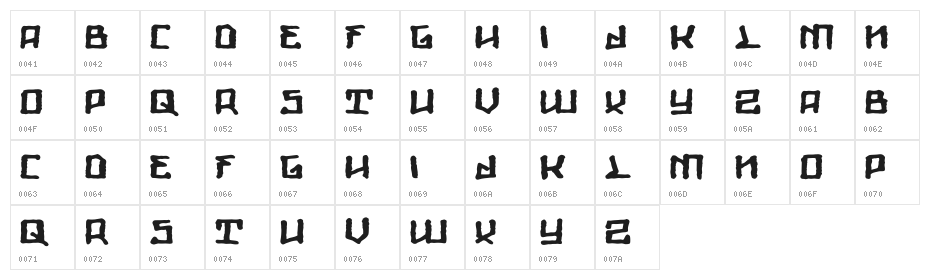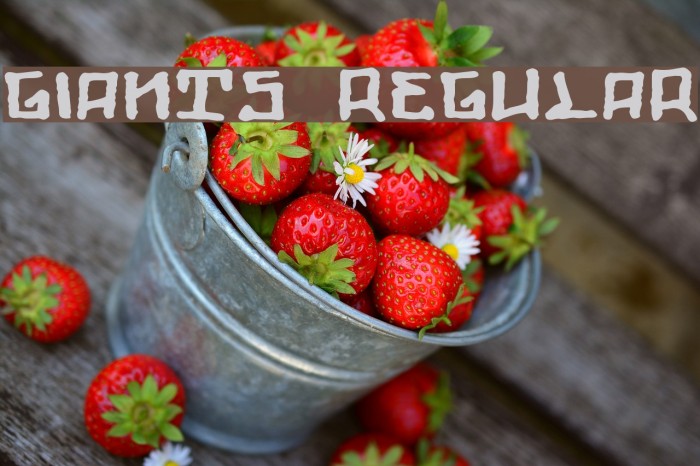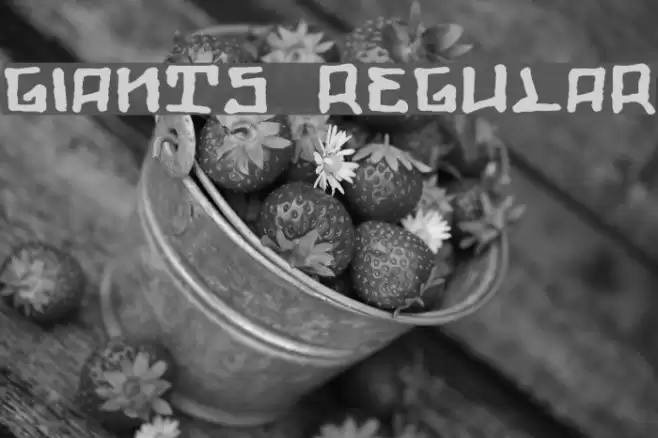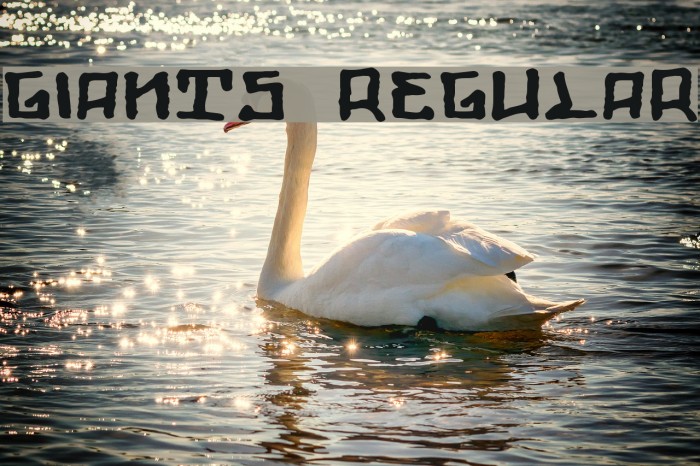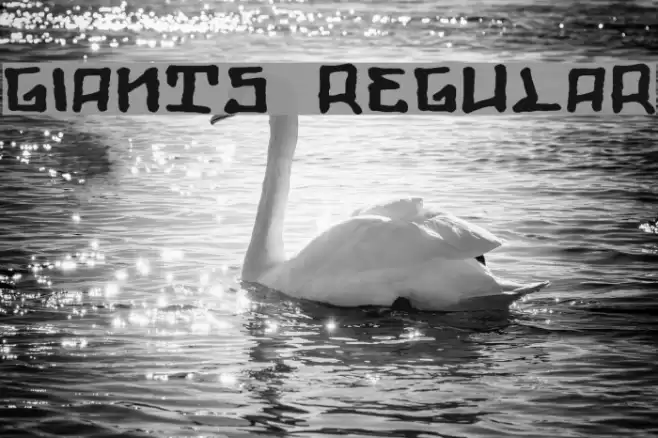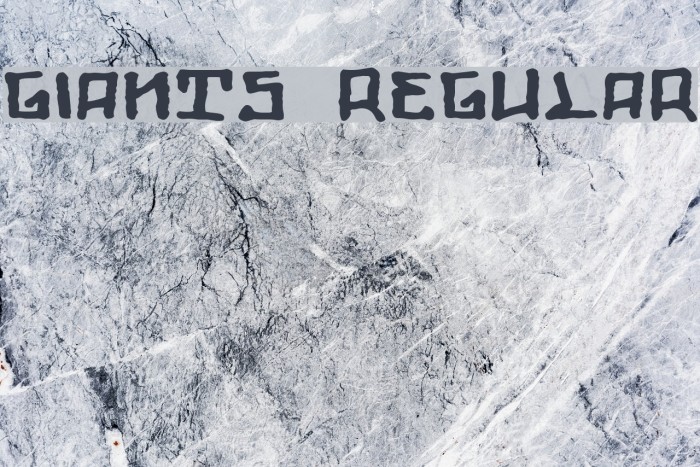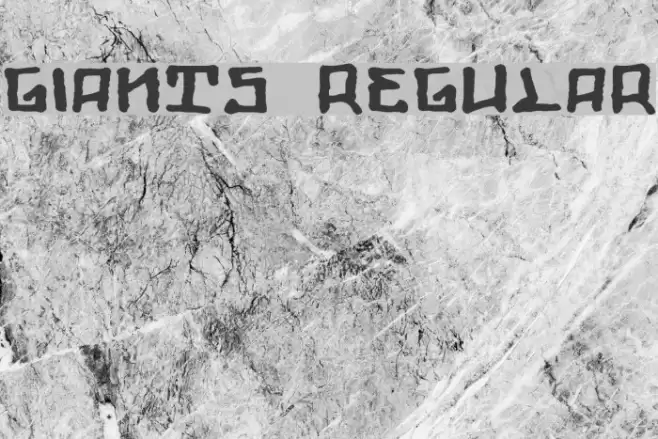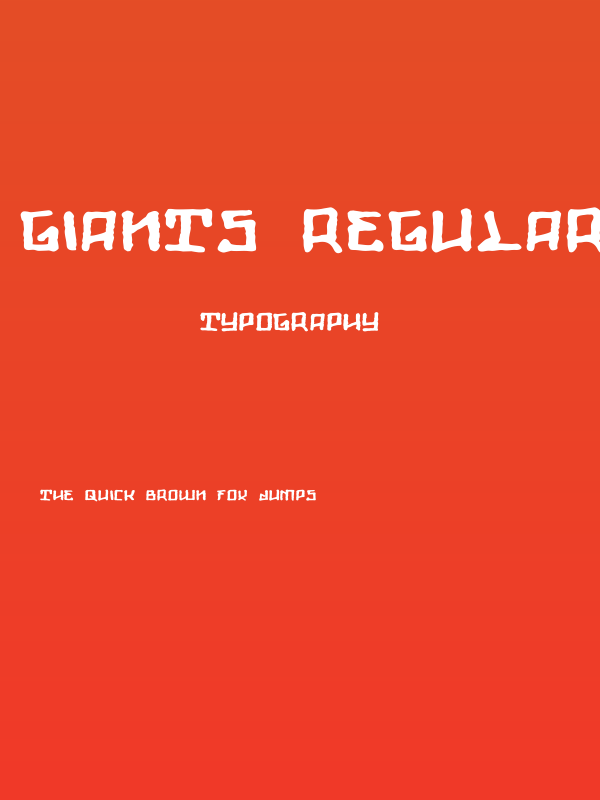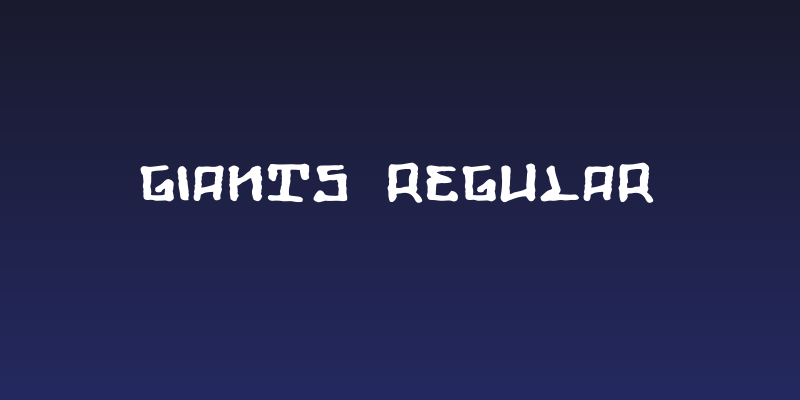
Giants Regular Font
Giants Regular Description
This font features a bold and rugged design, characterized by its thick, uneven strokes that give it a hand-drawn appearance. The letters have a slightly distorted look, with irregular edges that create a sense of movement and energy. This style is reminiscent of graffiti or street art, making it stand out with its unique and edgy aesthetic. The uppercase and lowercase letters maintain a consistent style, while the numbers and special characters follow the same bold and dynamic design. The font's distinctive appearance makes it ideal for projects that require a strong visual impact.
| Proposed Projects | Ideal for street art designs, edgy posters, music album covers, and urban-themed branding. |